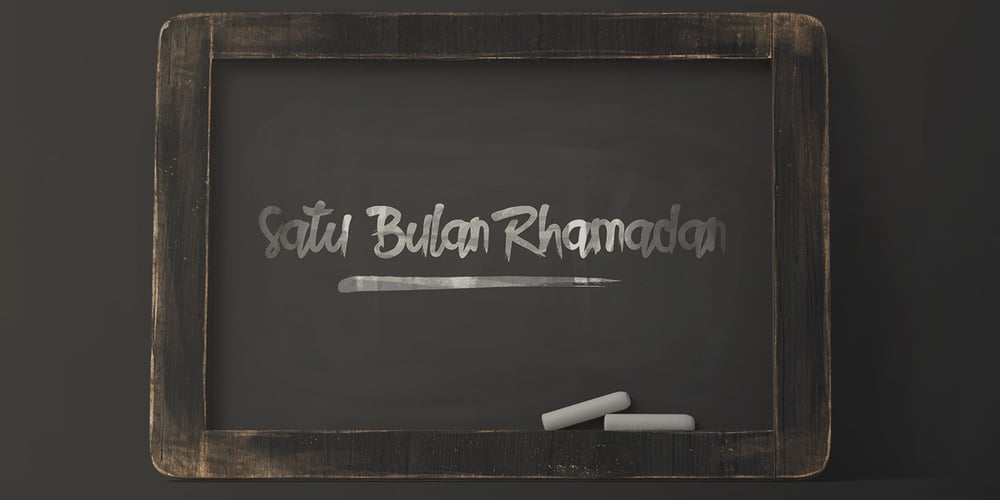
Resize Font Family was designed by Faisal Tanjung and published by sizimon. Resize contains 1 styles and family package options. Resize is a handmade typeface that is inspired from hand-drawn lettering. It is suitable for your awesome works such as product packaging, posters, social media posts, advertisements and product designs. It contains a full set of lower and uppercase letters, a large range of punctuation, numerals, and multilingual support, also has alternative characters. To enable the OpenType Stylistic alternates, you need a program that supports OpenType features such as Adobe Illustrator CS, Adobe Indesign & CorelDraw X6-X7.